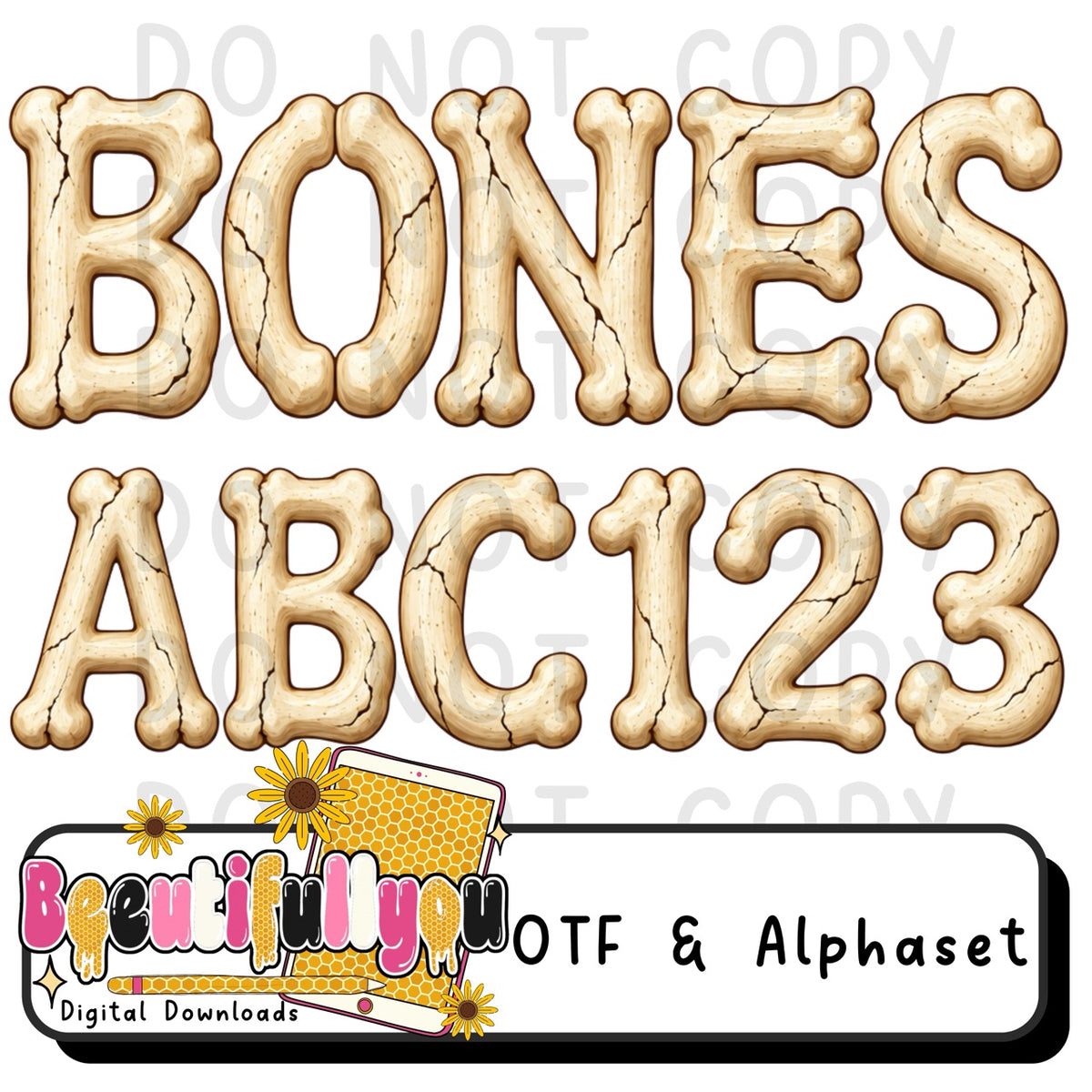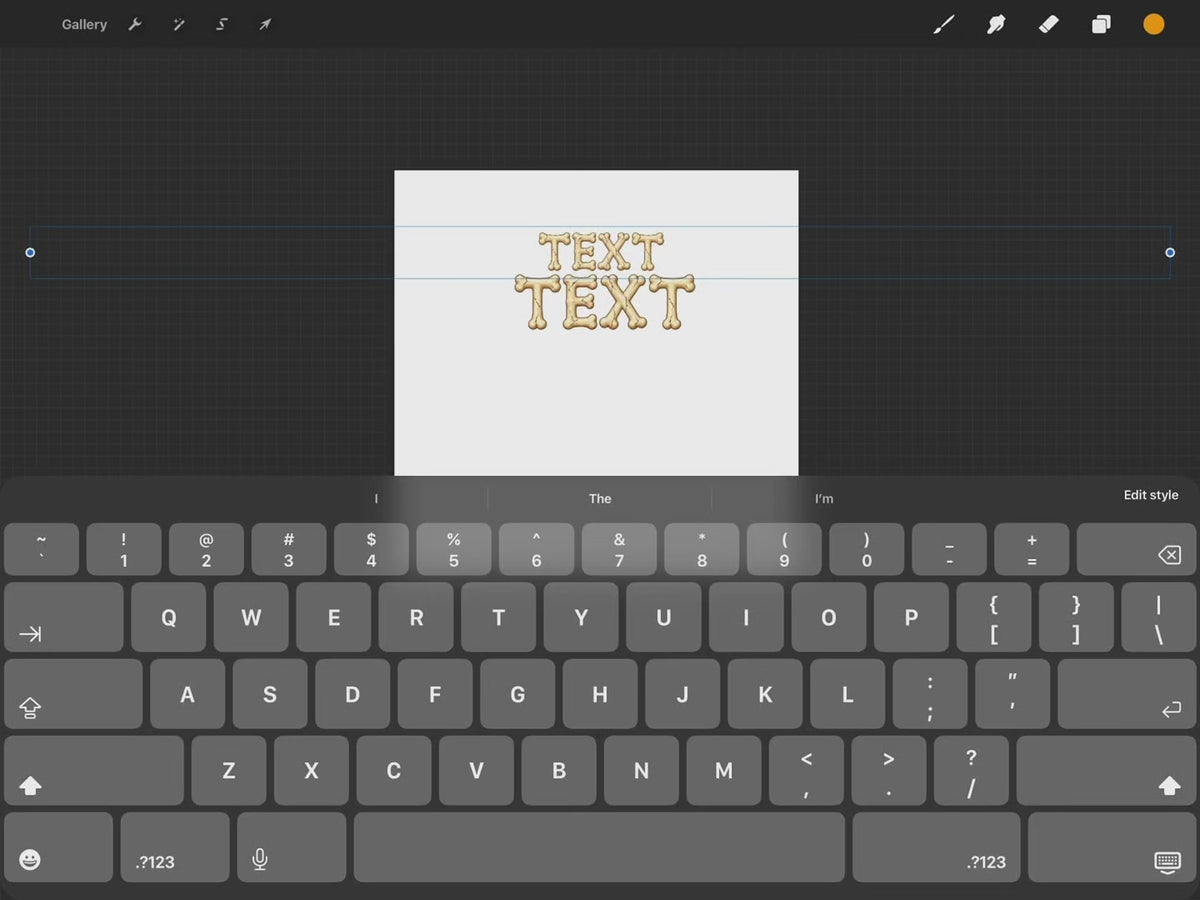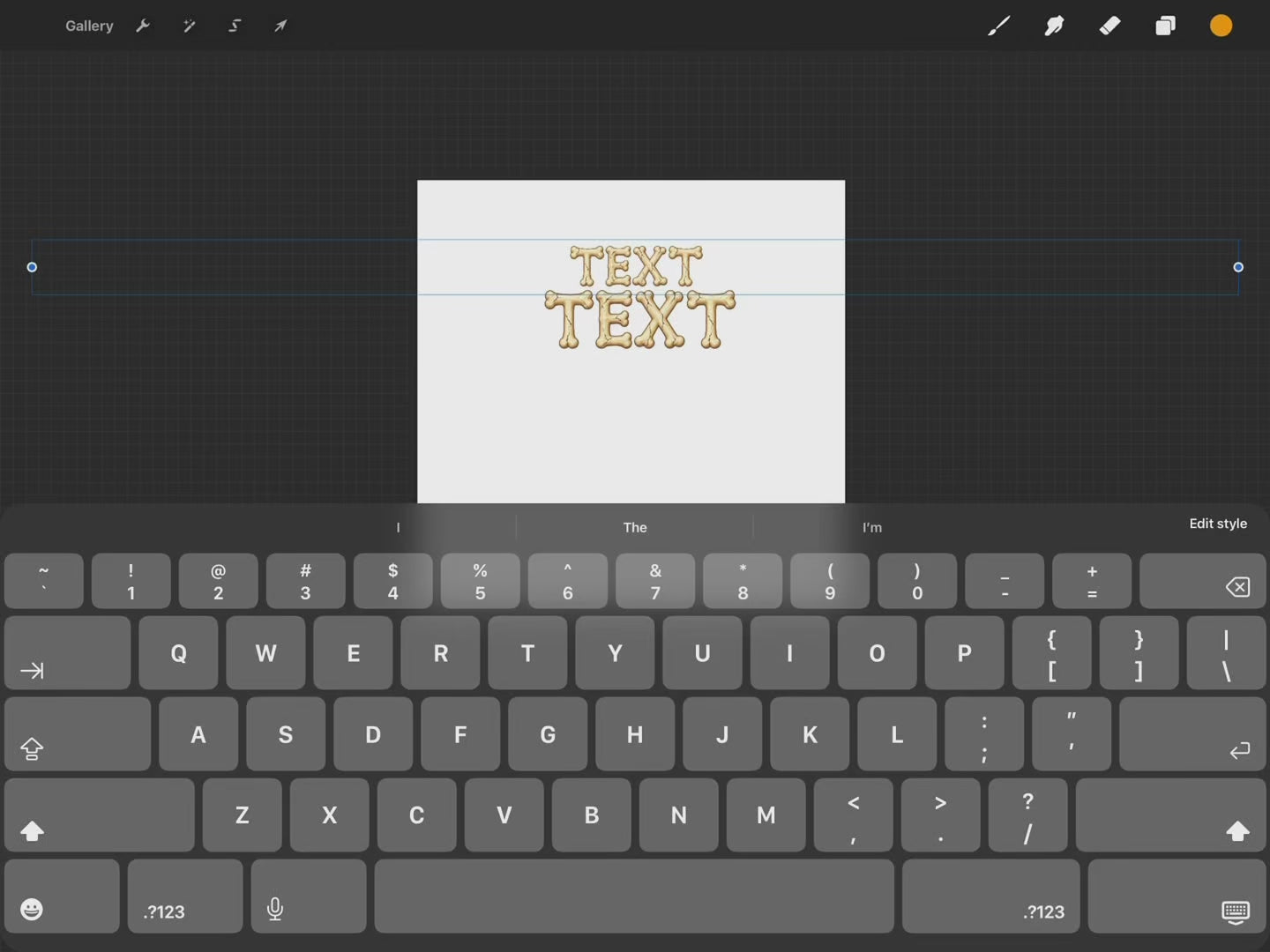
Halloween Bones OTF Font + Alpha Set
Meet Bones, a spooky Halloween font made to look like chunky carved and cracked bones. 🦴
Each character has a rounded bone-inspired shape with natural-looking cracks, warm ivory coloring, and darker shaded edges that give the letters a dimensional, hand-illustrated look.
The set includes letters and coordinating numbers in the same bone-style design.